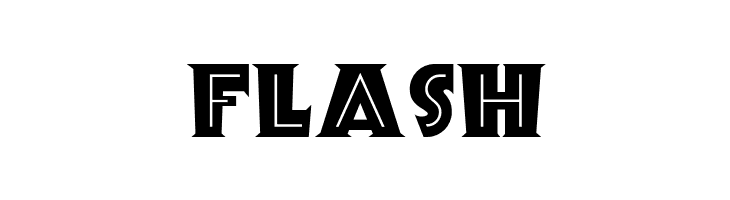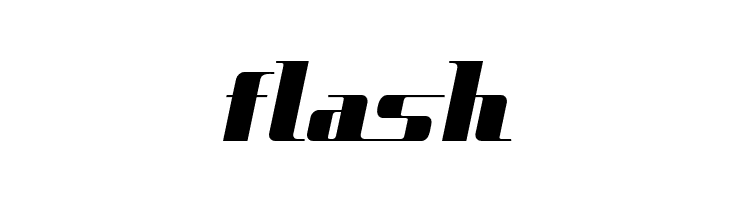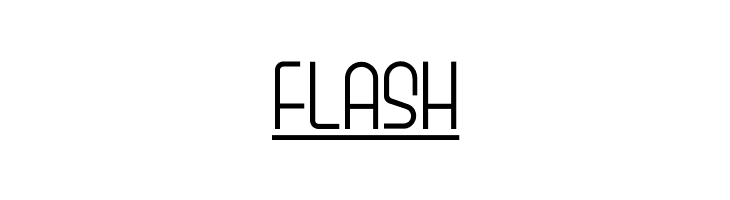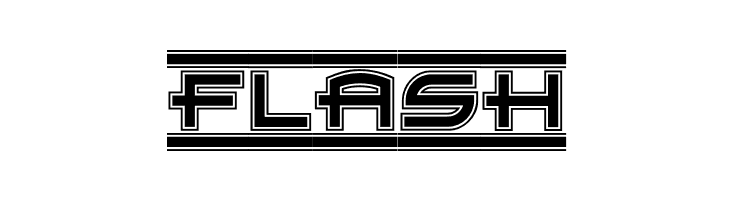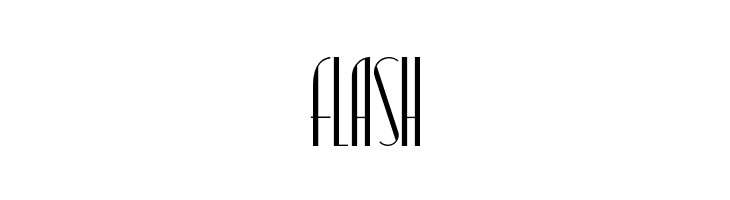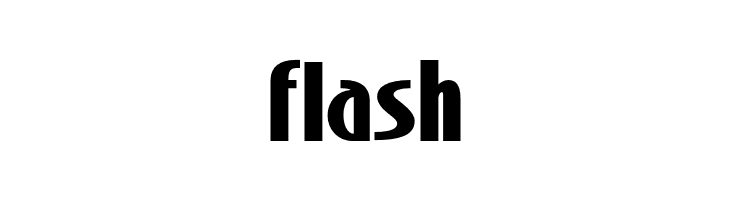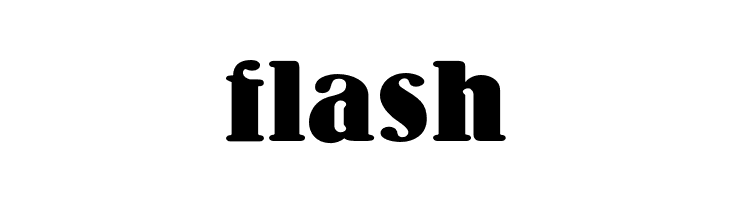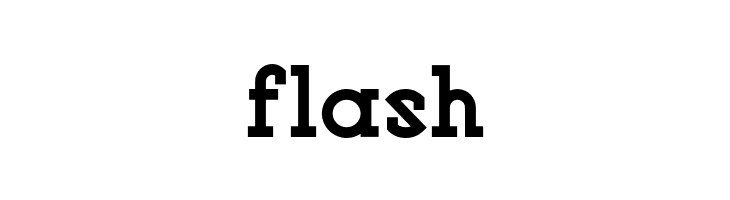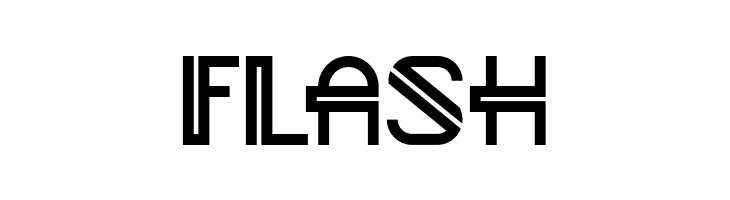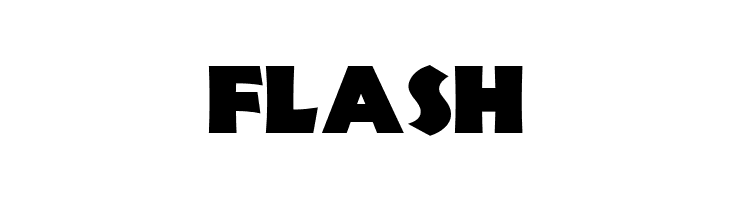
Ornamental geometric border font with Art Deco influence.
A bold, retro-inspired font with geometric shapes and decorative elements.
A futuristic, angular font with a dynamic slant and bold presence.
A modern, geometric font with tall, narrow characters and uniform stroke width.
A bold, geometric font with an architectural, three-dimensional style.
A dynamic, forward-leaning font with bold, angular characters.
A tall, narrow font with high contrast and elegant, modern styling.
A bold, decorative font with geometric and organic elements, perfect for impactful designs.
A bold, vintage-style slab serif font with strong, uniform characters.
A geometric and decorative font with rounded serifs and consistent stroke width.
A bold, geometric slab serif font with a modern retro aesthetic.
A bold, geometric font with a futuristic and modern design.
A bold, dynamic font with angular strokes and playful shapes, perfect for adventurous themes.
A bold, playful font with a three-dimensional outline and geometric style.
A bold, high-contrast serif font with modern elegance.
A bold, geometric font ideal for striking headlines and displays.
A classic serif font with bold, elegant serifs and a vintage feel.
A bold, geometric font with Art Deco influences and uniform strokes.
A bold, classic serif font with strong, authoritative characters.
A classic serif font with elegant, well-defined characters and moderate contrast.
A bold, geometric font with high contrast and a dynamic cut-out style.
A modern-vintage font with high contrast and decorative elements.
A bold, geometric font with sharp angles and a striking appearance.
A bold, playful font with a distinctive shadow effect and whimsical style.
A bold, dynamic font with a modern-vintage flair and sweeping strokes.
A bold, decorative font with ornate frames and a vintage flair.
A bold, geometric font with strong vertical lines and angular shapes.
A bold, dynamic font with thick, irregular letterforms.
A bold, elegant font with tall, narrow characters and decorative serifs.
A playful, bold font with cartoonish strokes and strong outlines.
A playful and quirky serif font with exaggerated serifs and unique character shapes.
A bold, geometric font with a double-line outline for a modern look.
A bold, geometric outline font with a modern, futuristic style.
A bold, modern font with geometric shapes and consistent width.